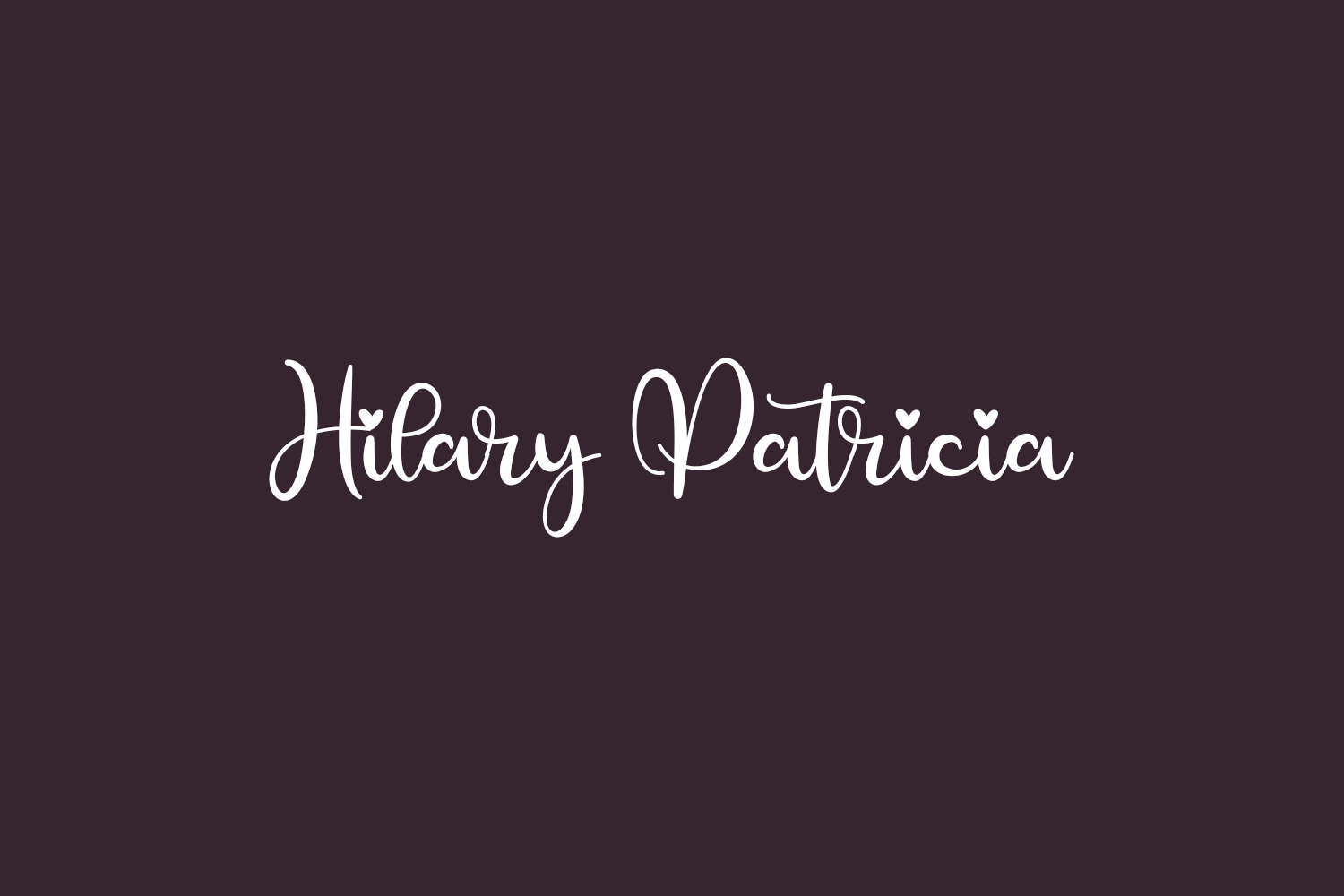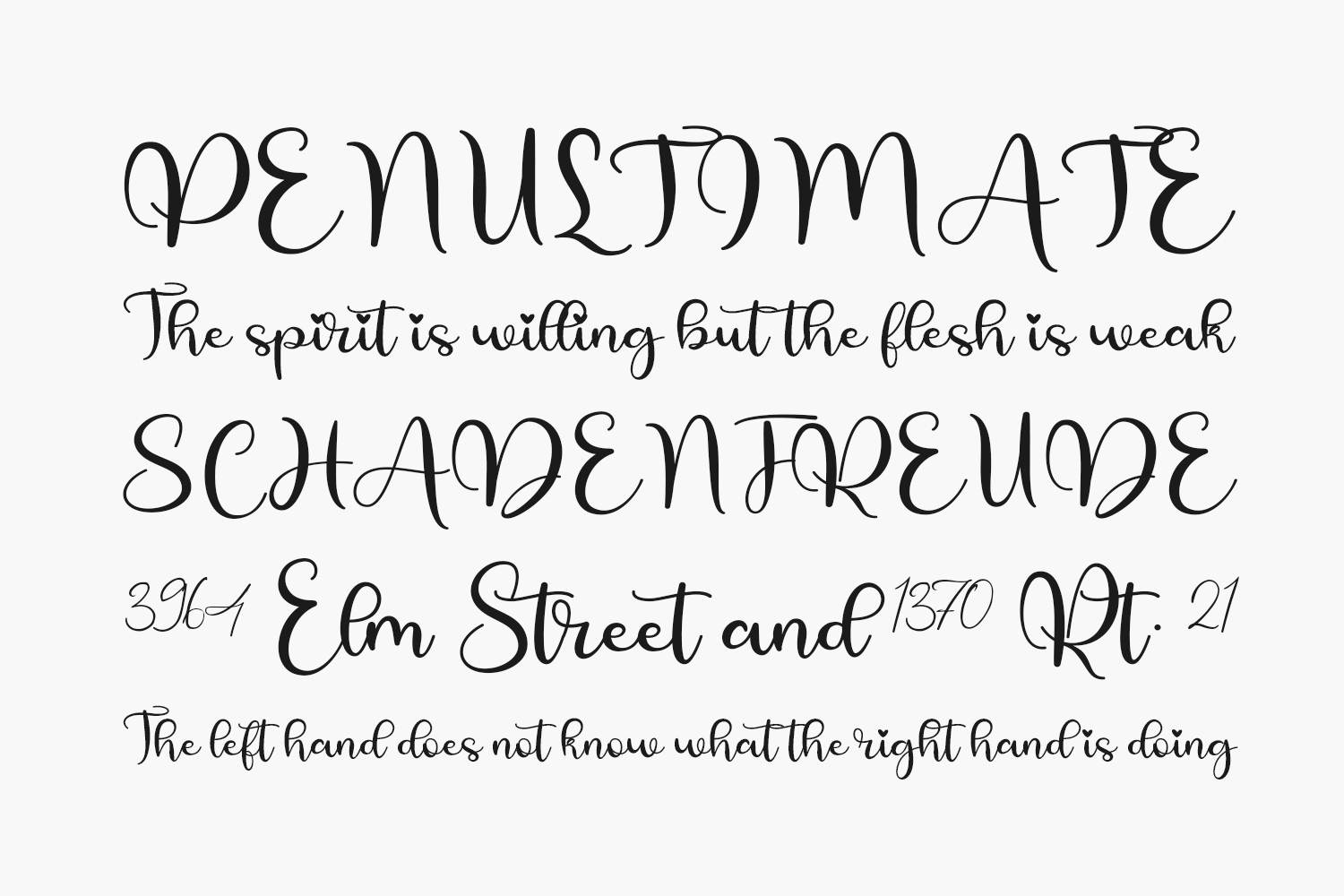
Hilary Patricia Free Font is a cursive attractive handwritten font. It looks beautiful on wedding invitations, weddings, greeting cards, logos, and much more. Hilary Patricia Free Font was designed by Letter Art Studio is a demo and free for personal use only. Please purchase the full version for commercial use.